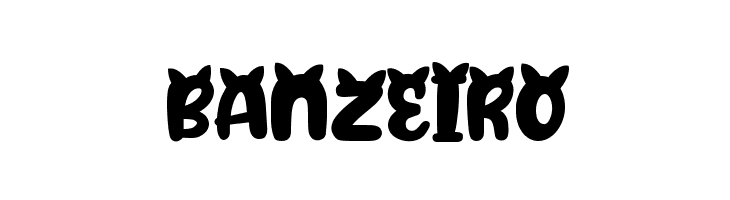
( Catty Funny is a cute and unique type of display font. The decoration in this font is very easy to use, because it has been specially designed so that it is easy to use. This font is perfect for promoting pet food, for writing posters, mugs, t-shirt desig )